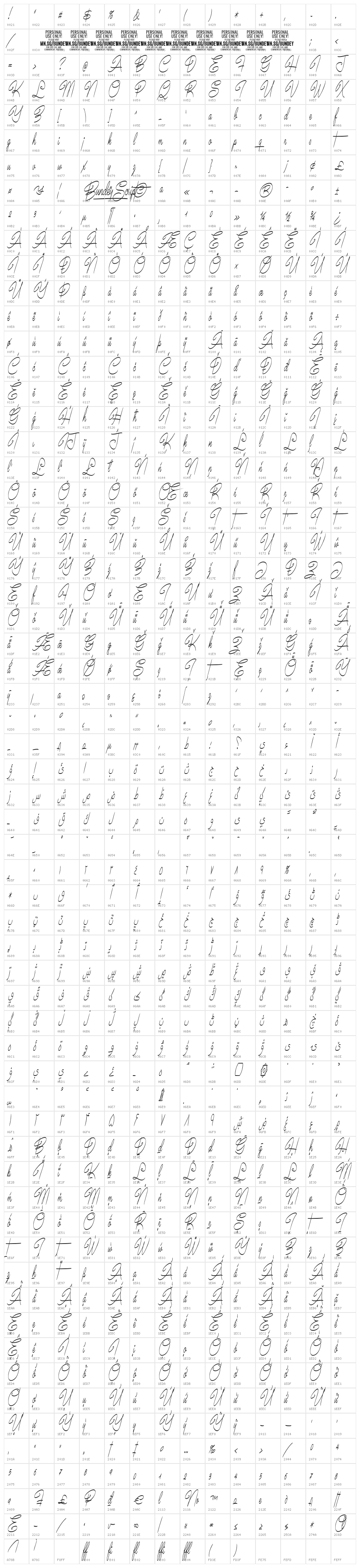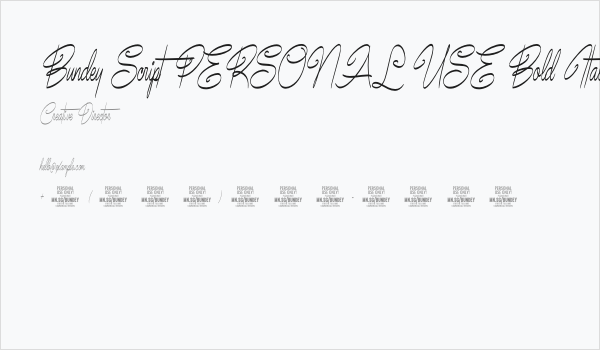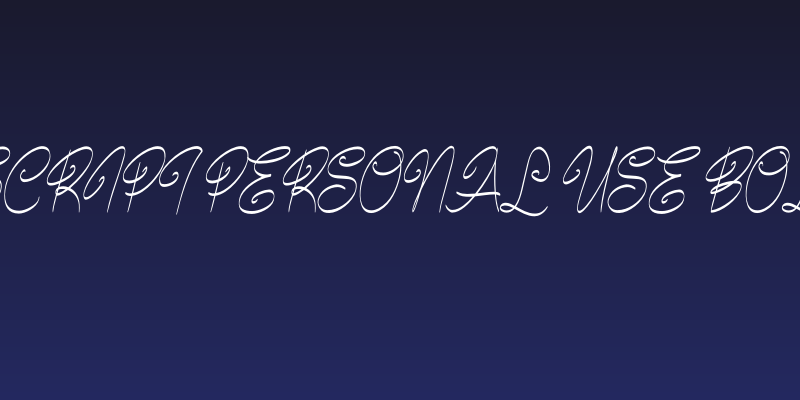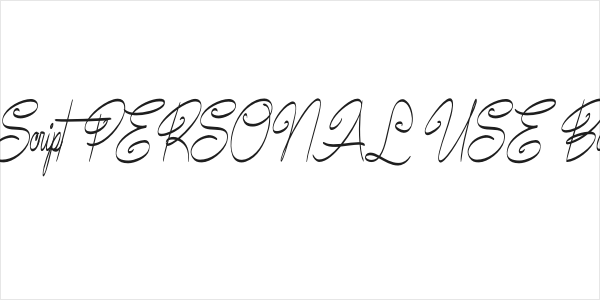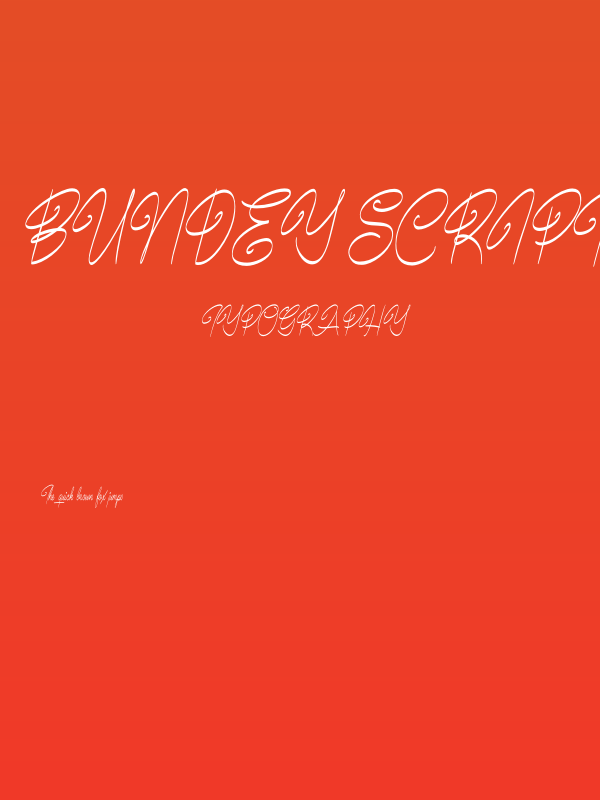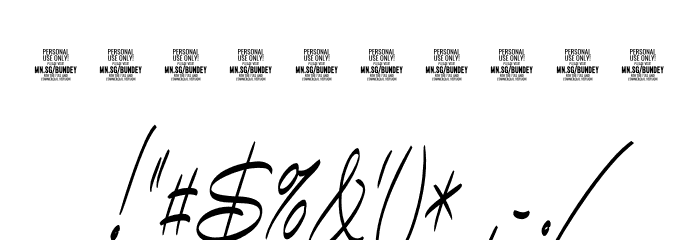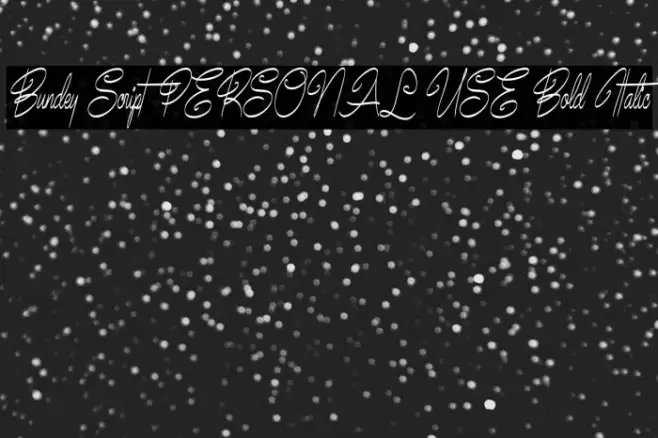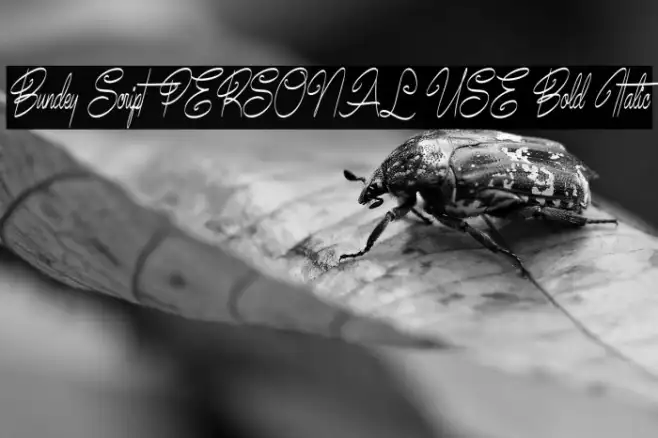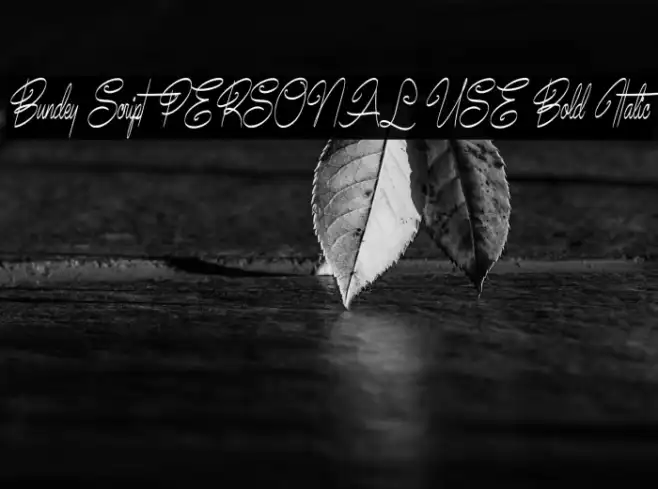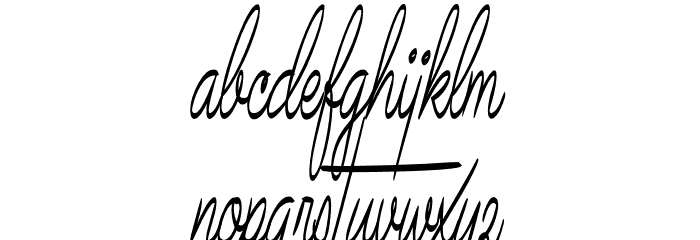
Bundey Script PERSONAL USE Bold Italic Font
Bundey Script PERSONAL USE Bold Italic Description
This elegant script font features a flowing, cursive style with a bold and italicized appearance. The letters are interconnected, creating a seamless and sophisticated look. The uppercase letters are ornate and decorative, while the lowercase letters maintain a consistent, flowing form. The numbers and special characters are designed to complement the overall script style, adding a touch of flair. This font is ideal for projects that require a personal, handwritten touch, such as invitations, greeting cards, or branding materials.
| Overall Style | Elegant, Decorative |
| Use Case | Headlines, Logos, Invitations |
| Proposed Projects | Ideal for wedding invitations, greeting cards, branding, and personal stationery. |